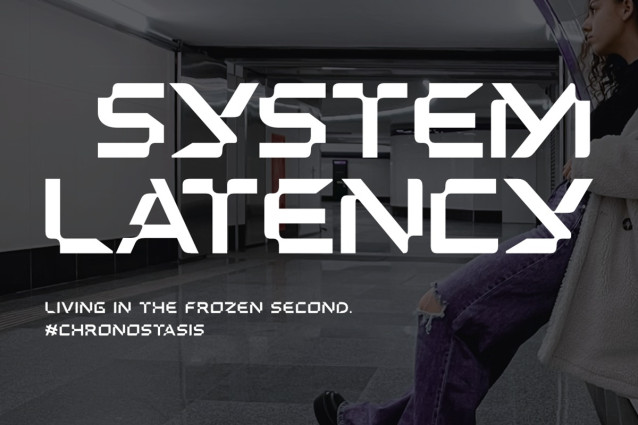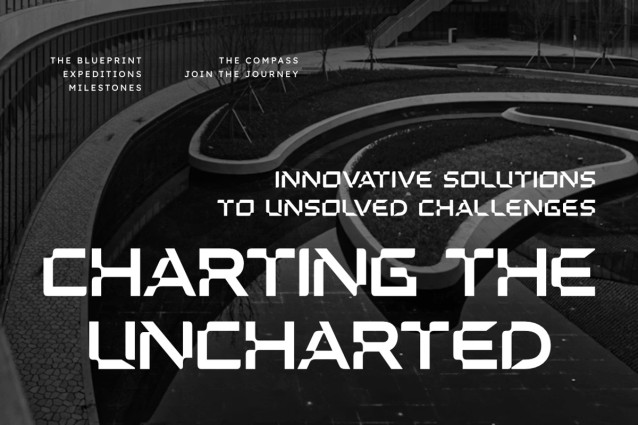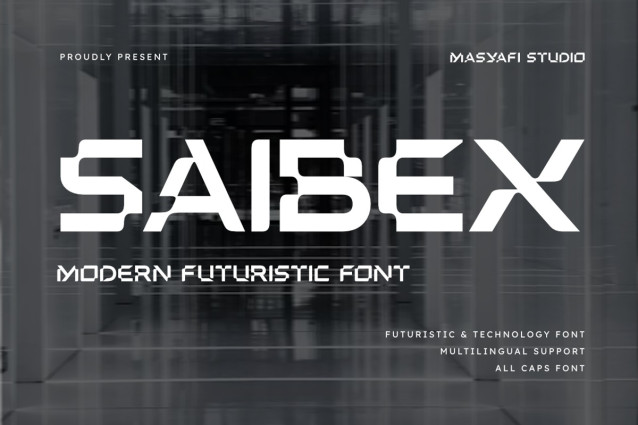
Saibex Font
Saibex Font a powerhouse futuristic font from Masyafi Studio. Inspired by the sleek aesthetics of modern robotics and space-age architecture, Saibex is a masterclass in geometric precision, blending mechanical rigidity with a dynamic flow that screams innovation.
Saibex was crafted specifically for creators who need a font with “attitude.” Its solid, wide-set proportions make it an ideal choice for high-energy branding, futuristic UI/UX interfaces, and aggressive sports apparel. This font doesn’t just sit on a page; it commands attention and defines the visual landscape of the future.